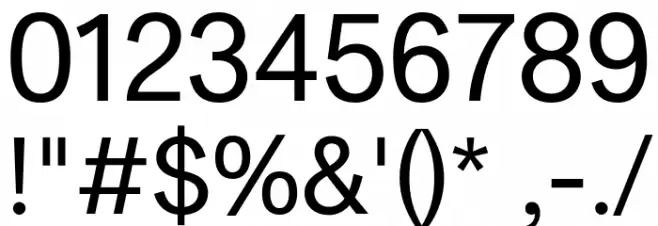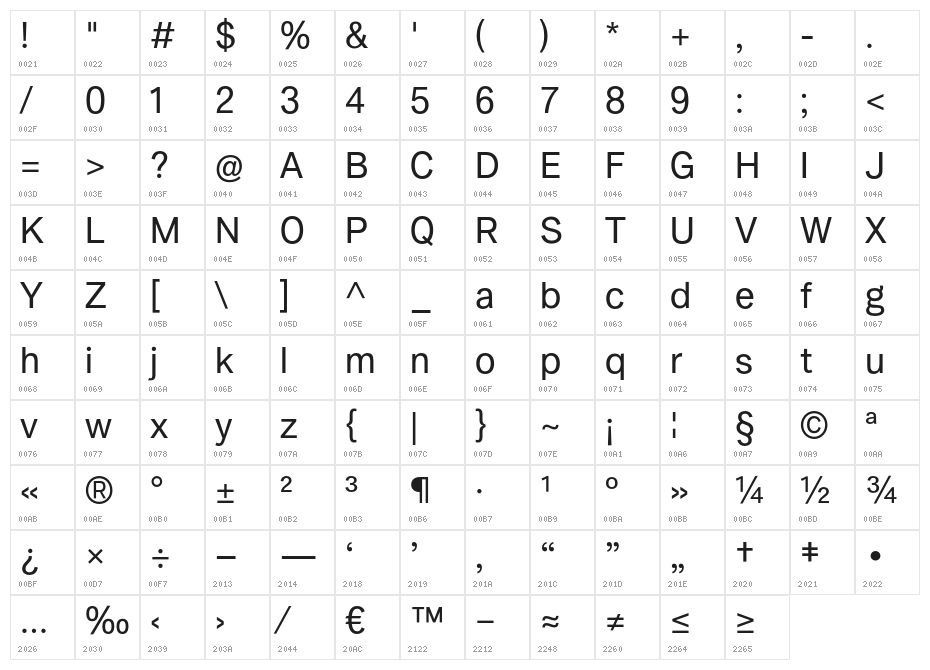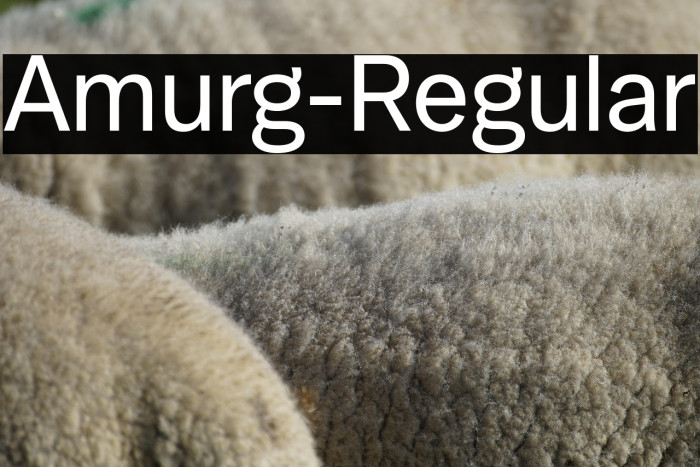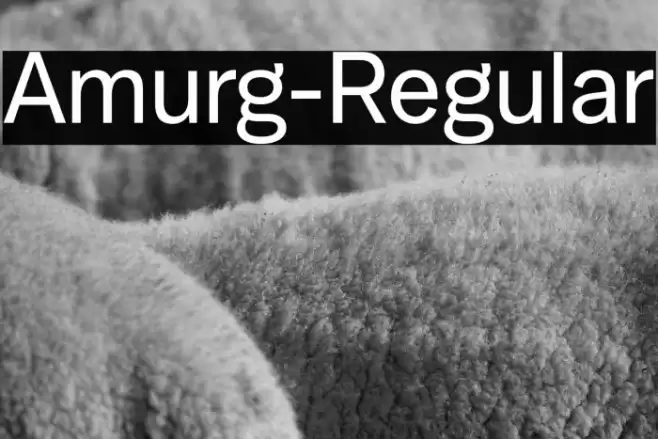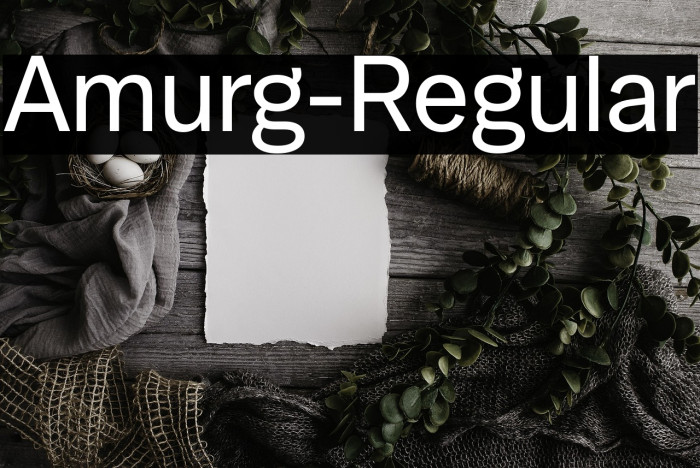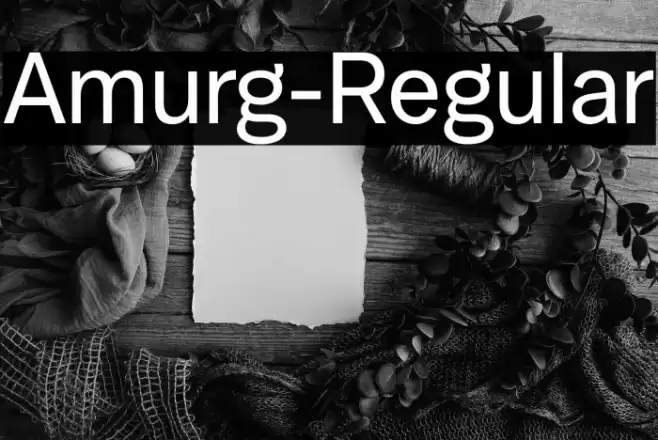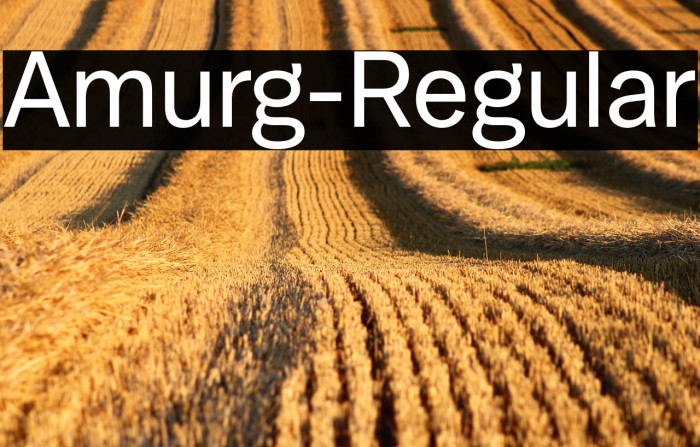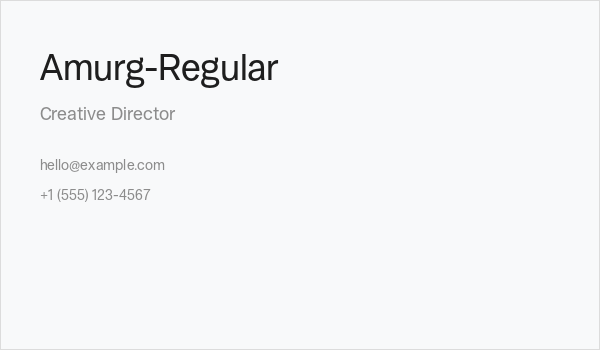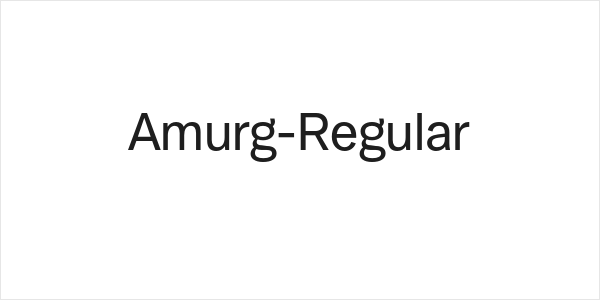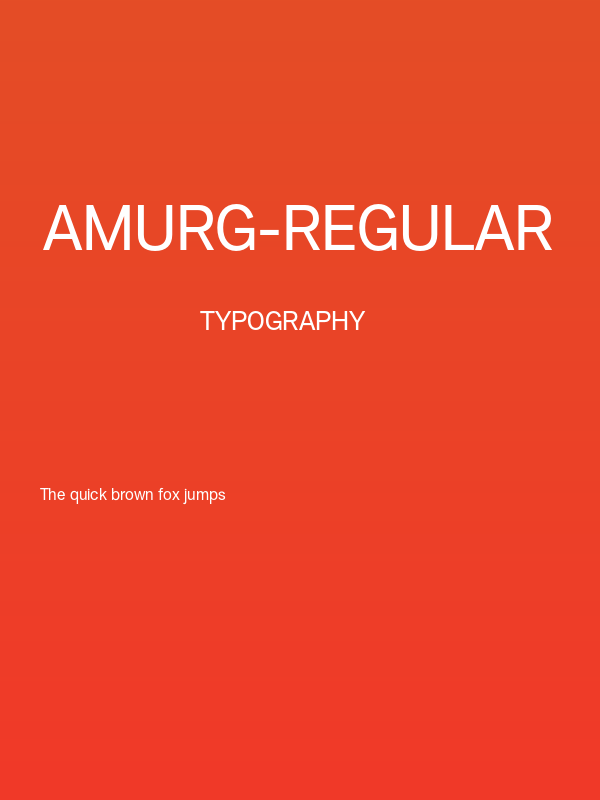
Amurg-Regular Font
Amurg-Regular Description
This font features a clean and modern sans-serif design, characterized by its uniform stroke width and geometric shapes. The characters are well-balanced, offering excellent readability across both uppercase and lowercase letters. The numerals are distinct and align well with the overall style, making it suitable for various applications. Special characters are clearly defined, maintaining the font's cohesive look. The simplicity and clarity of the design make it versatile for both digital and print media.
| Proposed Projects | Ideal for branding, web design, user interfaces, and editorial layouts. |